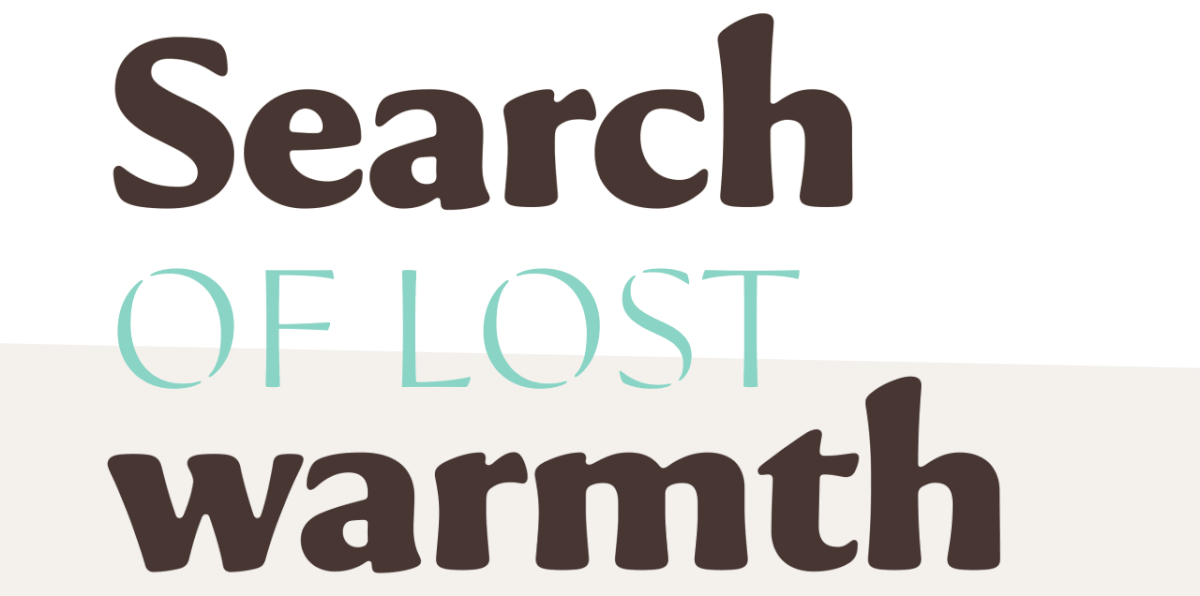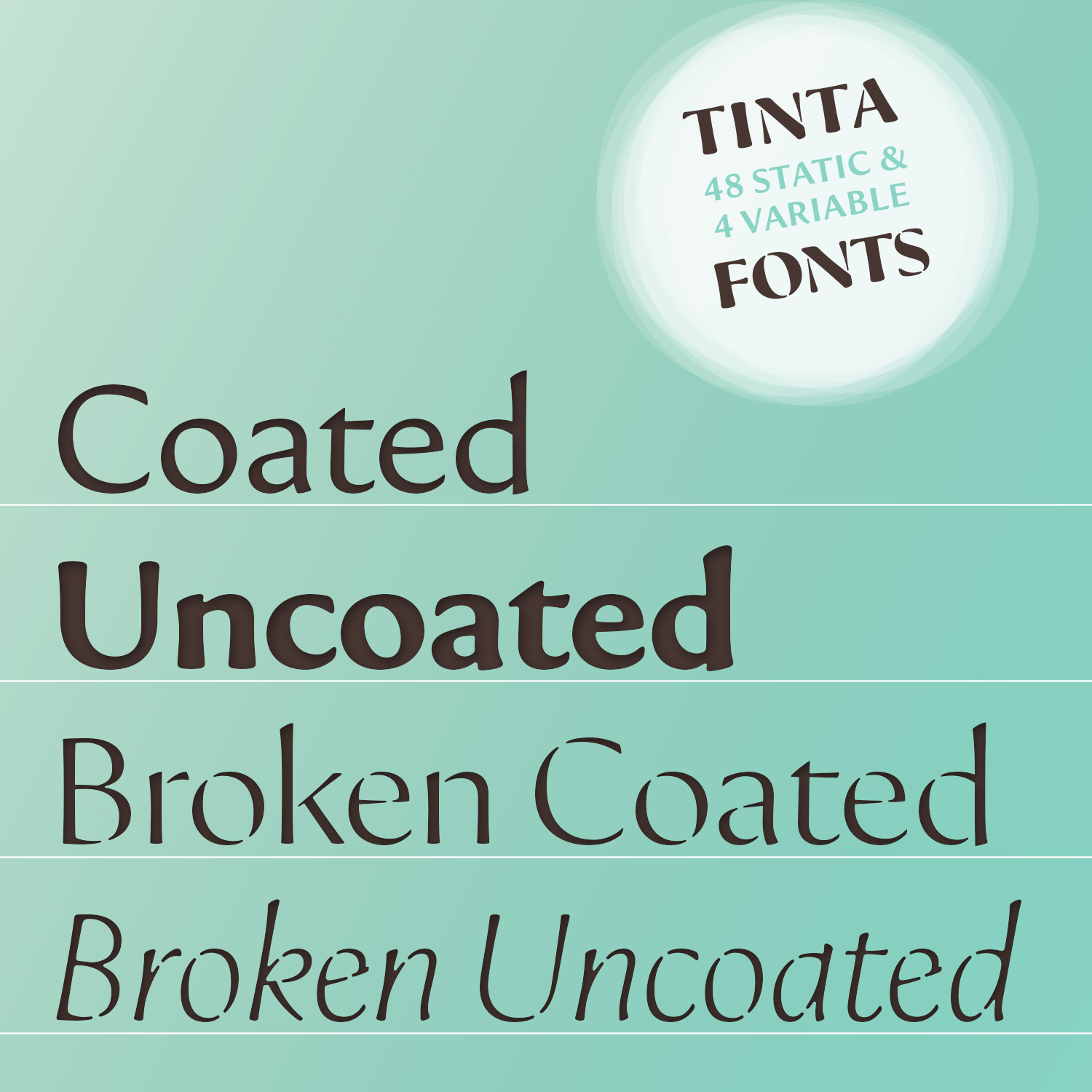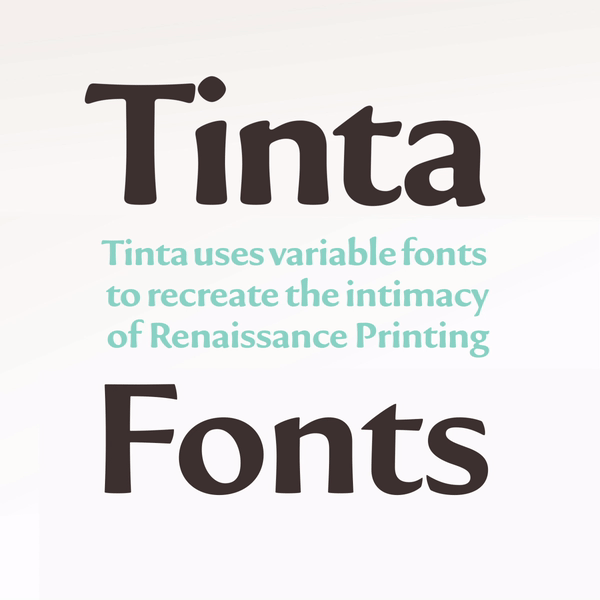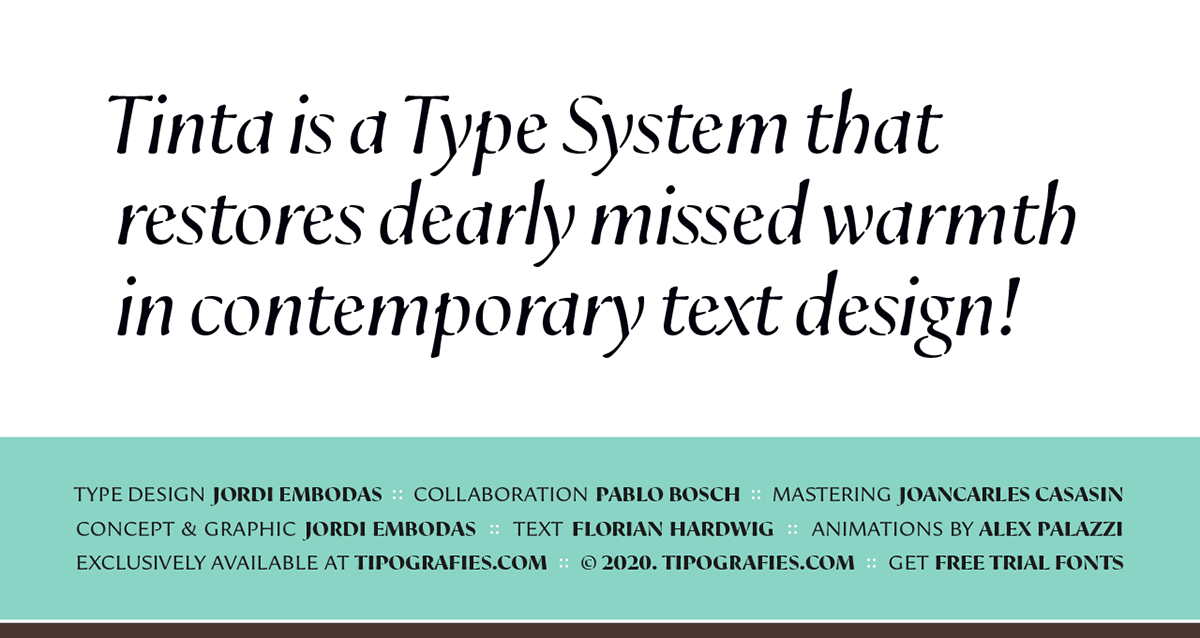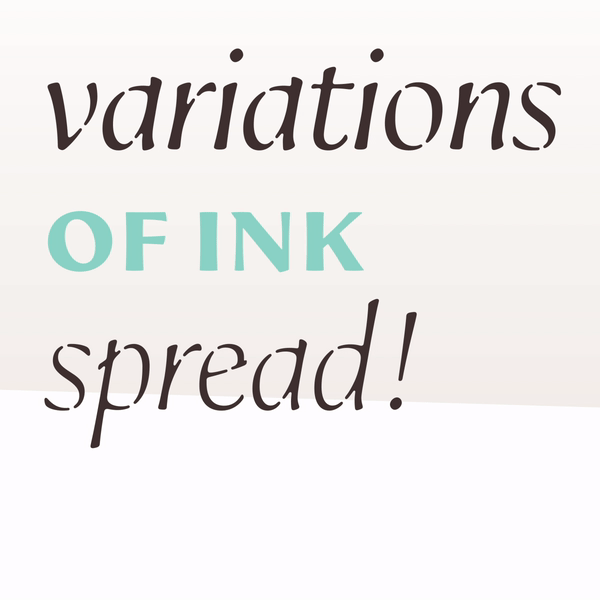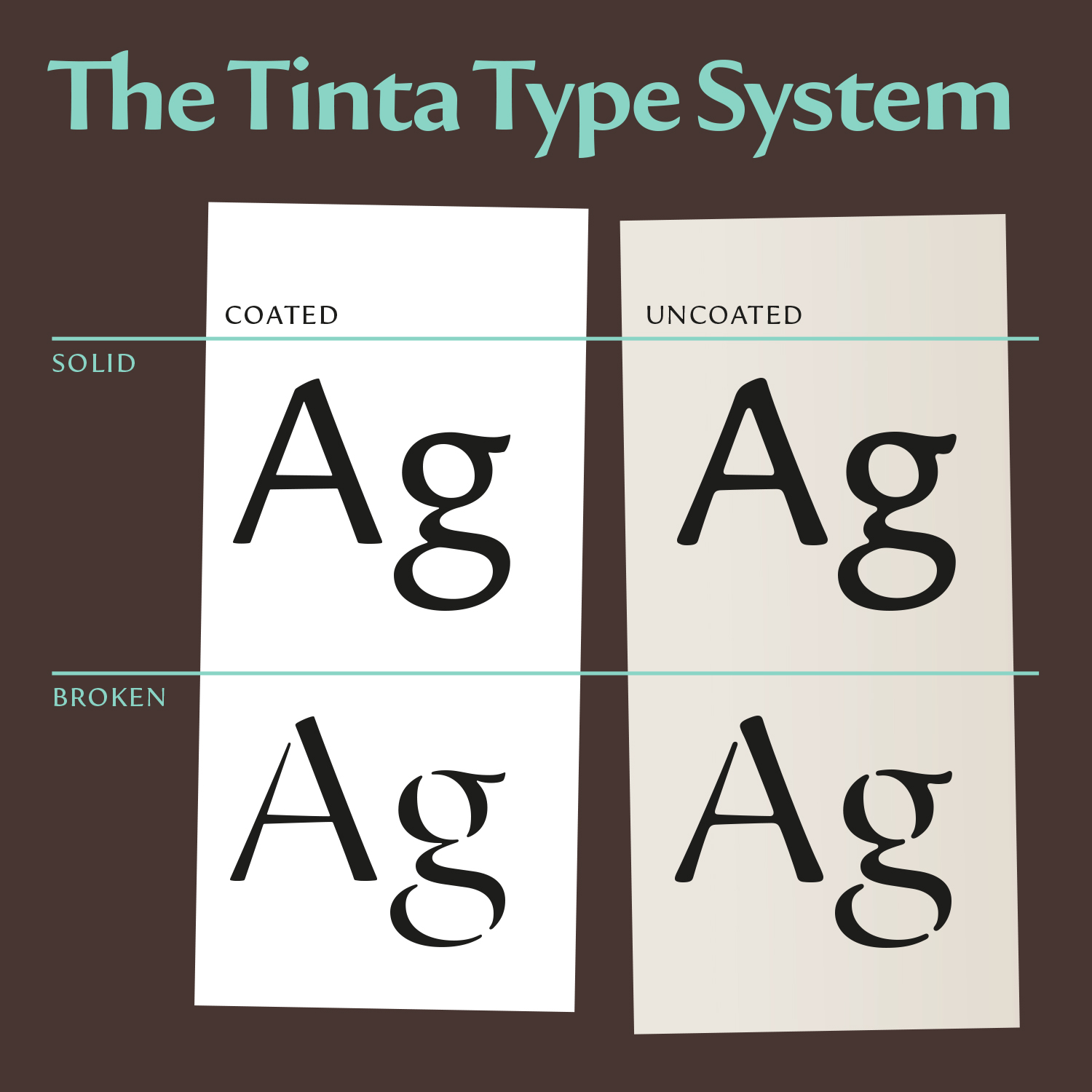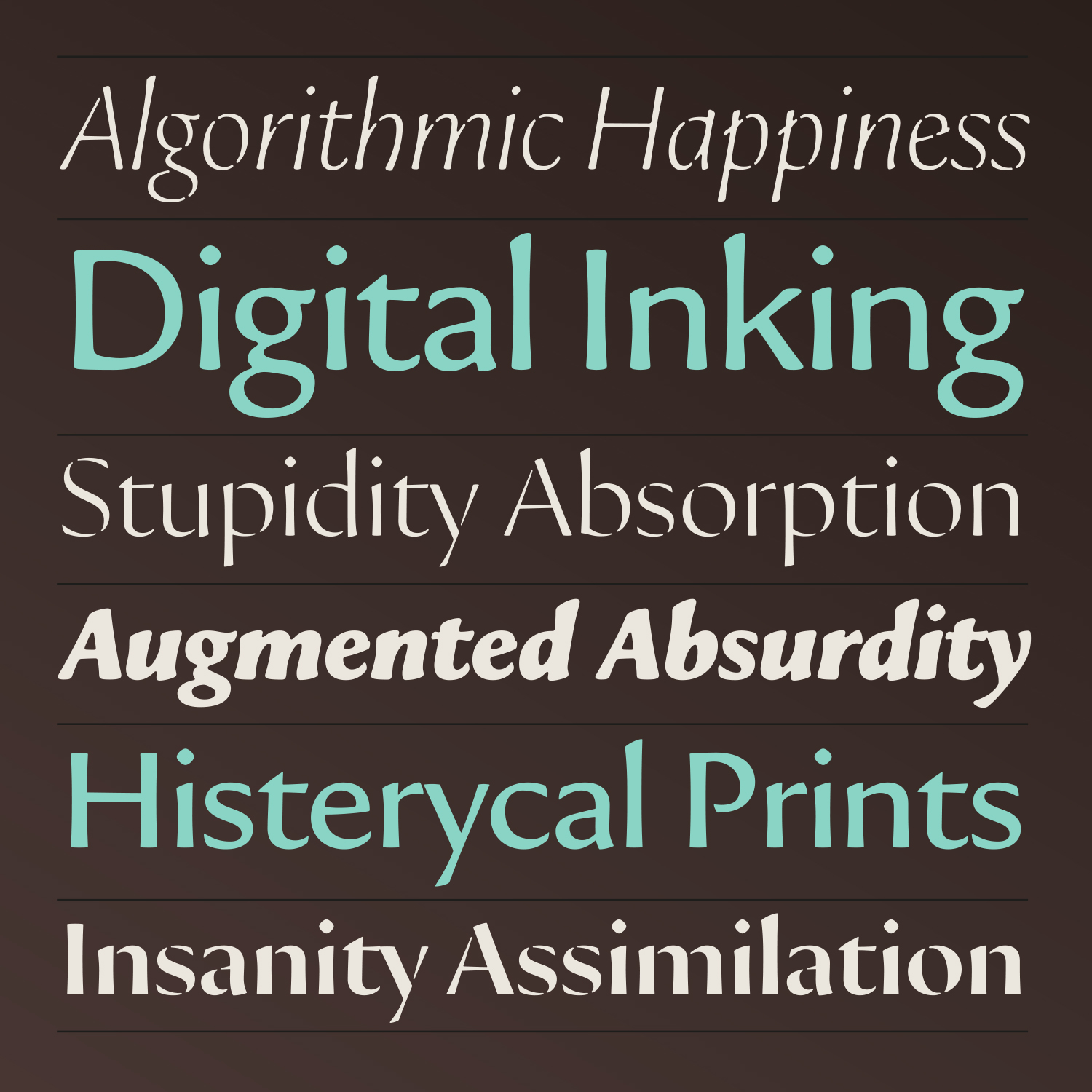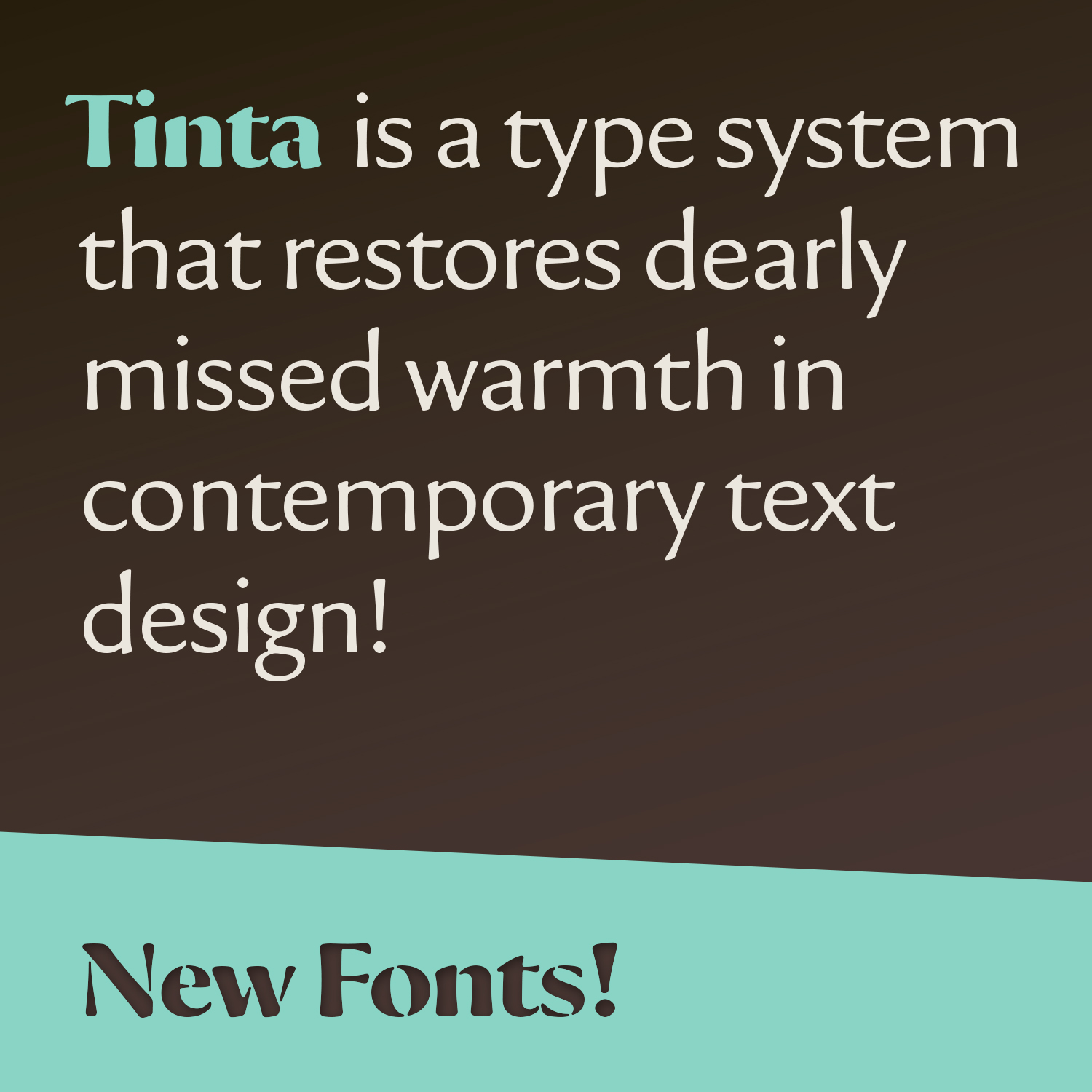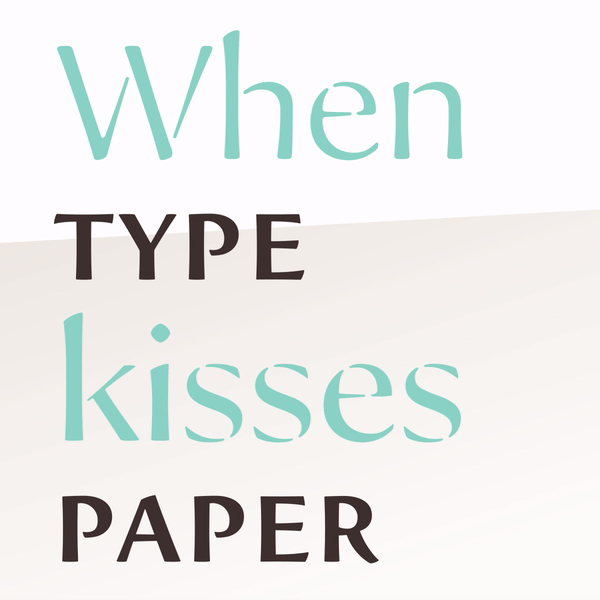
Jordi Embodas designed Tinta font. The Tinta typeface is a rebellion against sterility and cold perfection. In a time dominated by supersharp offset printing and screen typography, Tipografies embarks on a search of lost warmth. The goal is to recreate the mood of Renaissance printmaking. Tinta utilizes variable font technology to bring back the vulnerable quality of letterforms.
Tinta Coated is the starting point, with ideal shapes. While it already has rounded corners, Tinta Uncoated further emphasizes this softness. Imitating the effects of printing on absorbent paper, it’s ever so slightly bolder, with joins and notches filling in, edges wearing down, and terminals getting thicker. If the Coated is the equivalent of a “kiss impression” – a letterpress term referring to the perfect balance of ink and pressure – then the Uncoated is for when love grows more intense.
Tinta Broken, on the other hand, shows what happens when too little force is applied, or letters are underinked. Its glyphs are fragmentary – the marks of a cursory, unfinished liaison. Thin strokes get thinner, exposing the diagonal contrast axis deduced from the broad-nib pen. Some parts even break. Despite these gaps, Tinta Broken is not a stencil design. It’s the lovesick type, craving for closer contact.